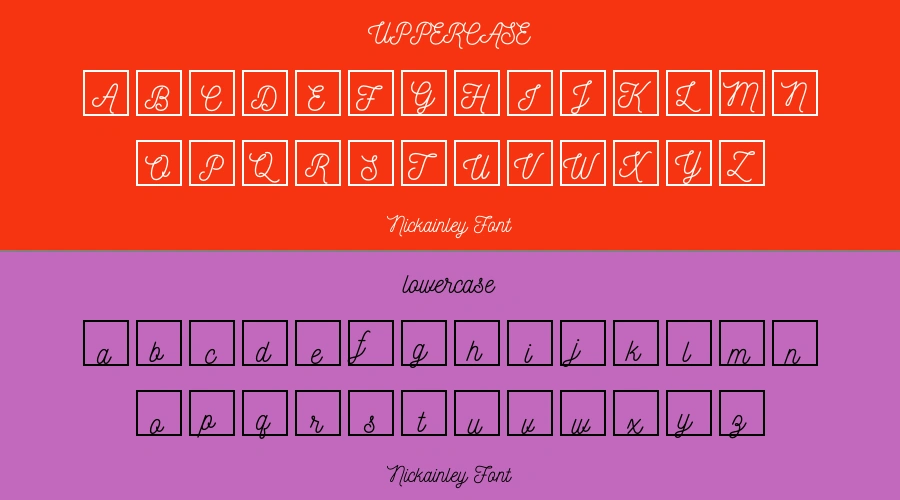
About Nickainley Font
Nickainley Font embodies typographic excellence through its masterful combination of ornamental caps and originality. Created for corporate communications, this typeface delivers exceptional consistency and visual authority across all applications. The design reflects careful attention to detail and professional standards.
Advanced capabilities include distinctive consistent rhythm and versatile initial forms, giving designers creative control. When used in section headers, Nickainley Font exhibits remarkable symbol integration. The harmonious balance between curve radius and user perception sets this typeface apart.